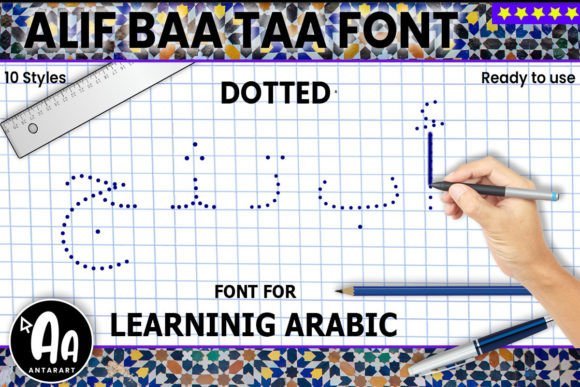
Unlocking the Secrets of Arabic Script: The Alif Baa Taa Dotted Font
As a designer, you’ve probably found yourself scribbling out intricate patterns or trying to recreate a beautiful calligraphy piece. But have you ever tried your hand at writing in Arabic? The elegant, flowing lines and intricate connections between letters can be mesmerizing to behold. For those who are fascinated by the Arabic language, creating beautiful and accurate scripts is a challenge that requires patience and dedication.
The Alif Baa Taa Dotted Font is a unique handwritten font that helps you to teach and learn Arabic, or create thousands of Arabic worksheets using any software. This valuable resource is a game-changer for designers who want to add an authentic touch to their projects or create educational materials that are both informative and engaging.
Key Features of “Alif Baa Taa Dotted Font”
- Font Family: Alif Baa Taa Dotted Font is a unique, hand-drawn font family designed specifically for Arabic language typesetting.
- Character Set: Supports the full Unicode character set for Arabic, including all diacritics and ligatures.
- Unique Characteristics: Features a distinctive dotted pattern on the letters, which adds a unique aesthetic touch to text and titles.
Review of Alif Baa Taa Dotted Font
Overall, I think Alif Baa Taa Dotted Font is a solid choice for any designer working on Arabic typography. Here are some aspects where it truly shines: ✨
- Authenticity – The font’s design is deeply rooted in Arabic calligraphy traditions, which is a huge plus for anyone aiming to create authentic-looking content.
- Legibility – The font’s letters are well-spaced and easy to read, even at smaller font sizes.
- Customization options – The font family offers a wide range of styles and weights, giving designers ample room for creative expression.
However, there are some limitations to keep in mind: ⚠️
- Limited language support – While the font is excellent for Arabic, it may not be as effective for other languages that use similar scripts.
- May require additional tweaking – Some designers may find the font’s default settings to be a bit too traditional, requiring adjustments to suit their specific needs.
Overall, I’d give Alif Baa Taa Dotted Font 4 out of 5 stars. It’s a reliable choice for Arabic typography, but may require some additional effort to fully realize its potential.
Use the Alif Baa Taa Dotted Font to add a unique and cultural touch to your designs. It’s perfect for:
- Islamic art and design
- Middle Eastern and South Asian cultural projects
- Language learning materials
Alternatives to Alif Baa Taa Dotted Font
1. Thuluth Font
Thuluth Font is a classic Arabic font used in traditional Islamic calligraphy and is suitable for formal and elegant designs. It is often used for inscriptions, titles, and headings. Thuluth Font is more ornate and intricate compared to Alif Baa Taa Dotted Font, making it ideal for designs that require a touch of sophistication.
2. Diwani Font
Diwani Font is a beautiful and elegant font used in traditional Arabic calligraphy. It is characterized by its flowing lines and is often used for decorative purposes. Diwani Font is more cursive and fluid compared to Alif Baa Taa Dotted Font, making it suitable for designs that require a sense of movement and elegance.
3. Naskh Font
Naskh Font is a versatile and readable font used in traditional Arabic calligraphy. It is often used for body text and is suitable for designs that require a balance between elegance and legibility. Naskh Font is more modern and streamlined compared to Alif Baa Taa Dotted Font, making it ideal for designs that require a clean and simple look.
4. Ruq’ah Font
Ruq’ah Font is a traditional Arabic font used for everyday writing and is characterized by its simplicity and elegance. It is often used for body text and is suitable for designs that require a sense of warmth and approachability. Ruq’ah Font is more minimalist compared to Alif Baa Taa Dotted Font, making it ideal for designs that require a clean and uncluttered look.
Can I customize the Alif Baa Taa Dotted Font to fit my design needs?
Yes, you can customize the Alif Baa Taa Dotted Font to fit your design needs. You can use font editing software, such as FontLab or Glyphs, to modify the font and add custom features. You can also use font substitution techniques,